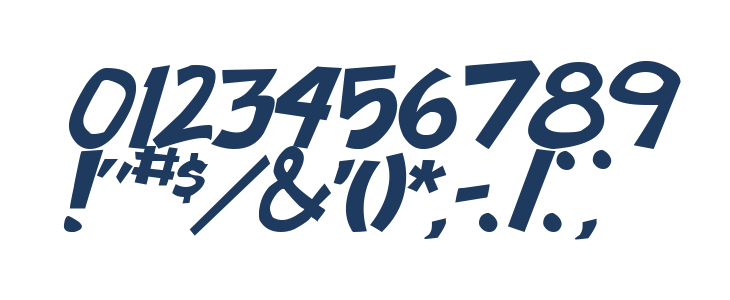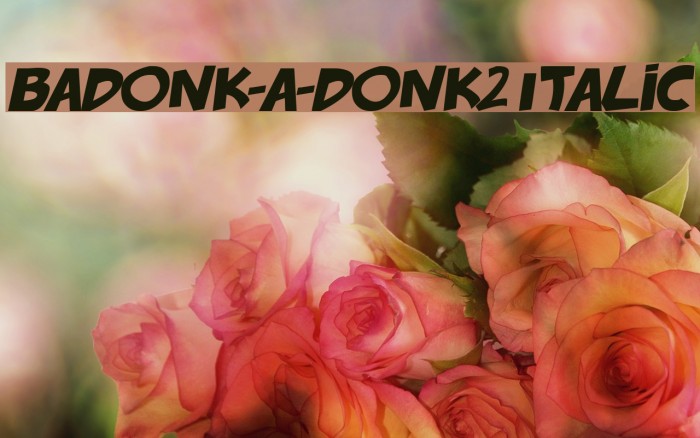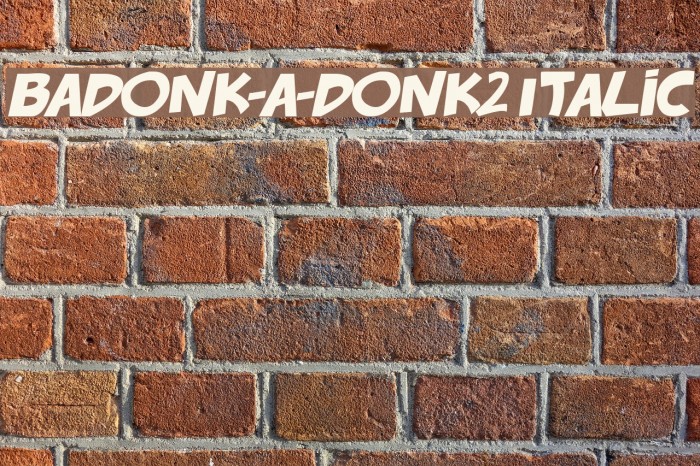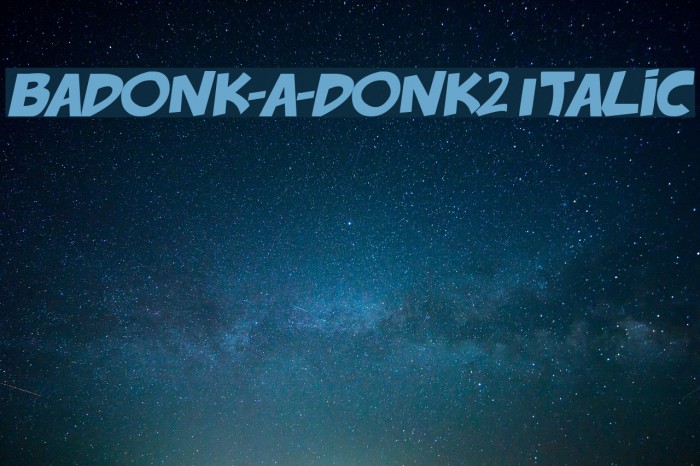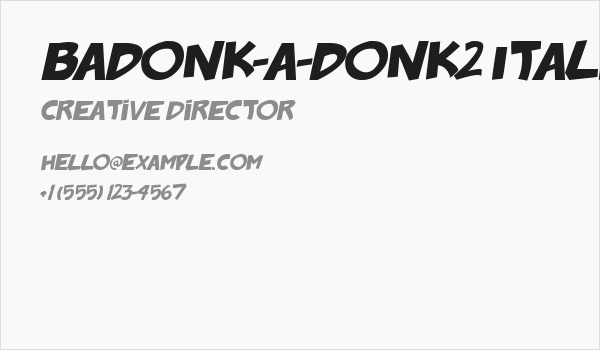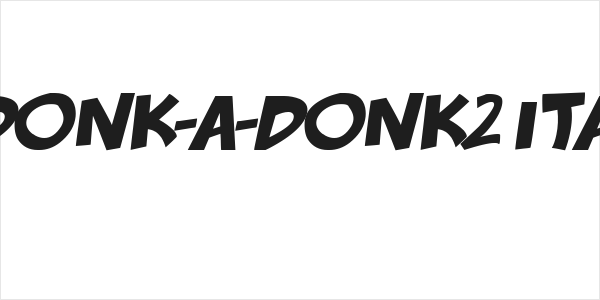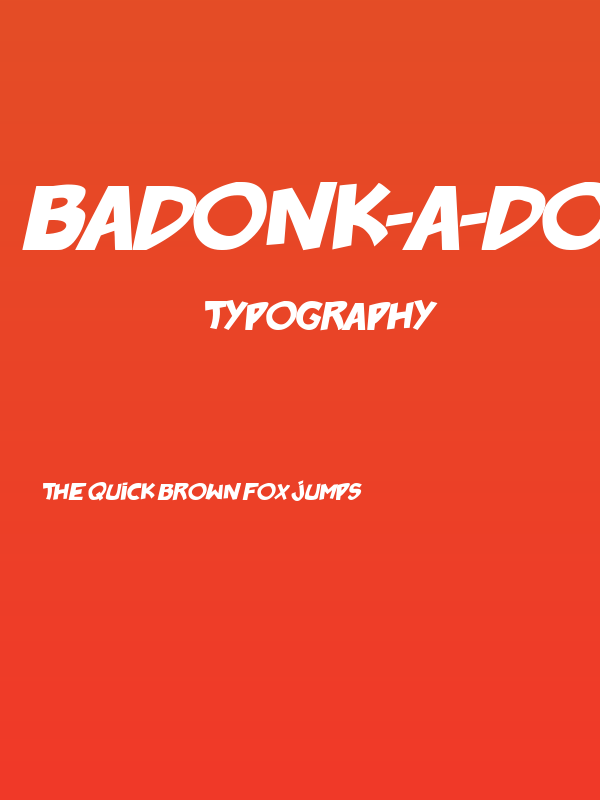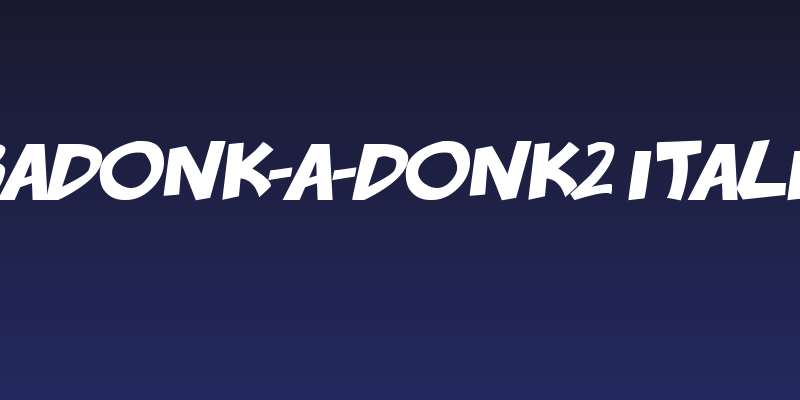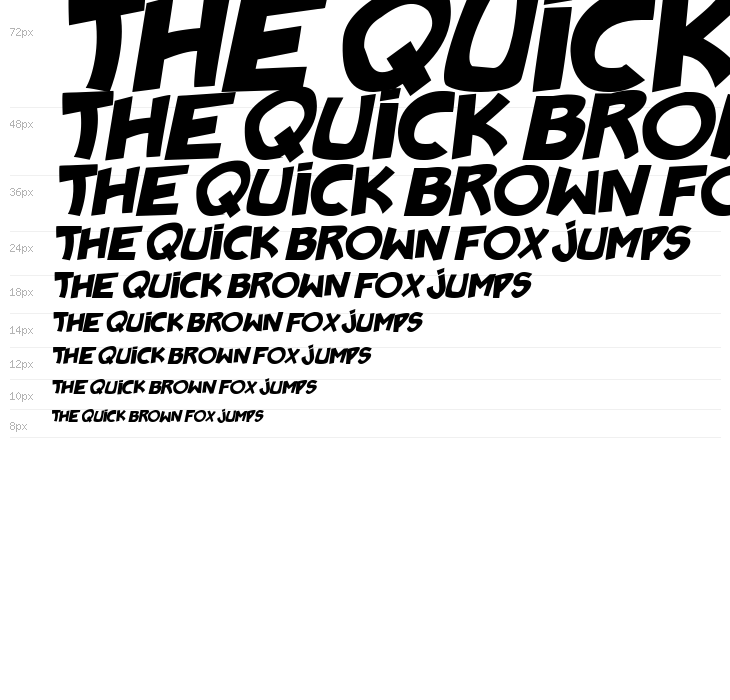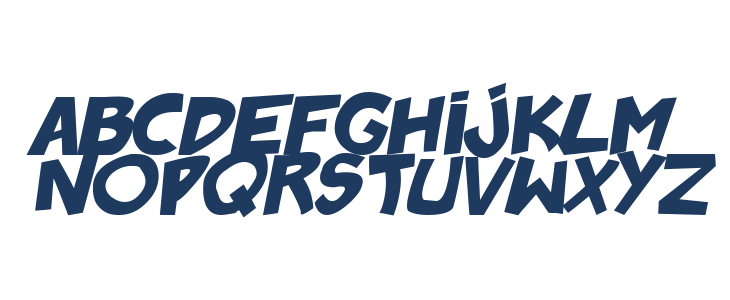
badonk-a-donk2 Italic Font
badonk-a-donk2 Italic Description
This font features a bold and dynamic style with a distinct italic slant, giving it a sense of motion and energy. The characters are thick and robust, with a playful yet assertive appearance. The uppercase and lowercase letters maintain a consistent style, with sharp angles and a slightly condensed form. The numerals and special characters follow the same bold and energetic design, making the font suitable for attention-grabbing headlines and creative projects. Its unique style makes it stand out, while still being legible and versatile.
| Proposed Projects | Ideal for posters, advertisements, branding, and any project needing a bold and energetic typeface. |